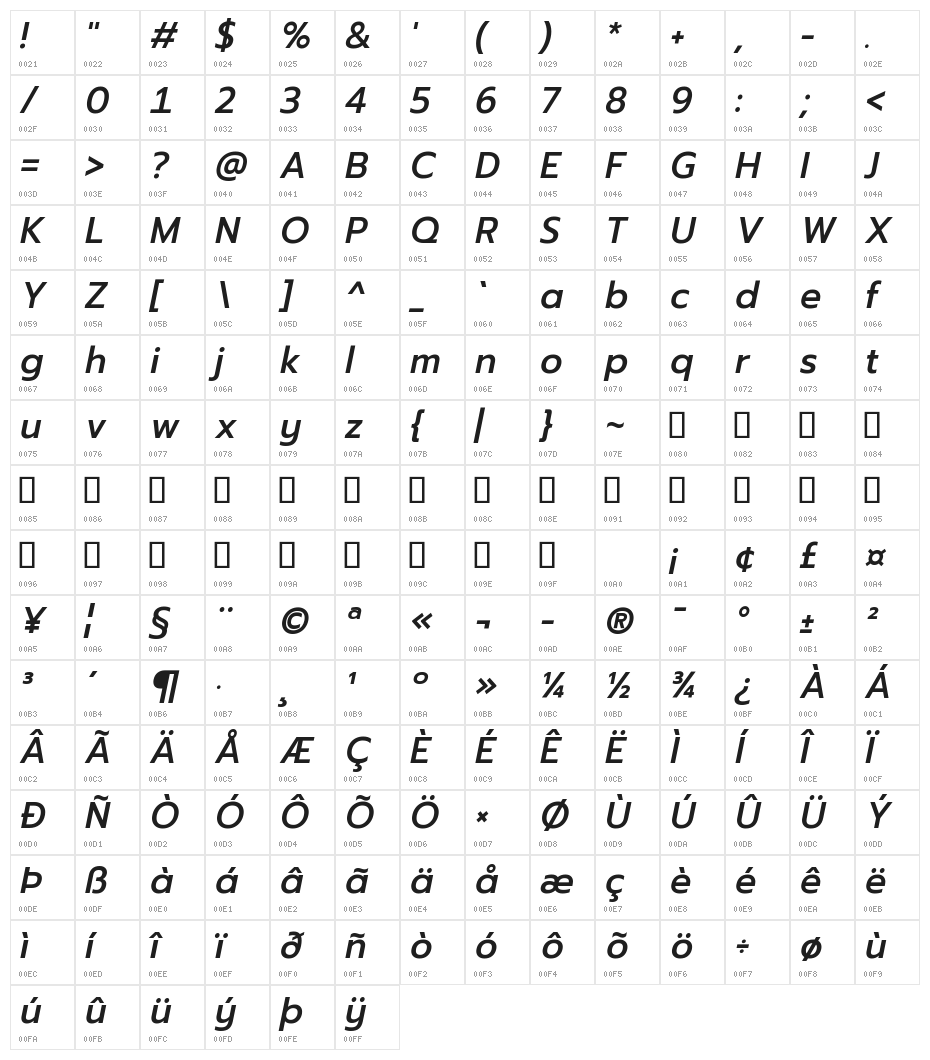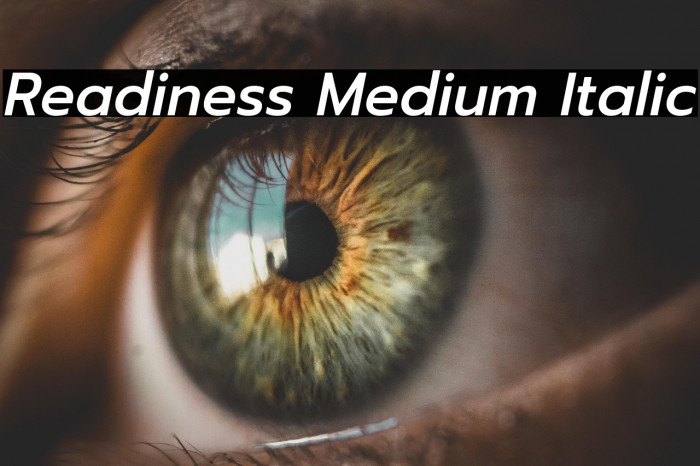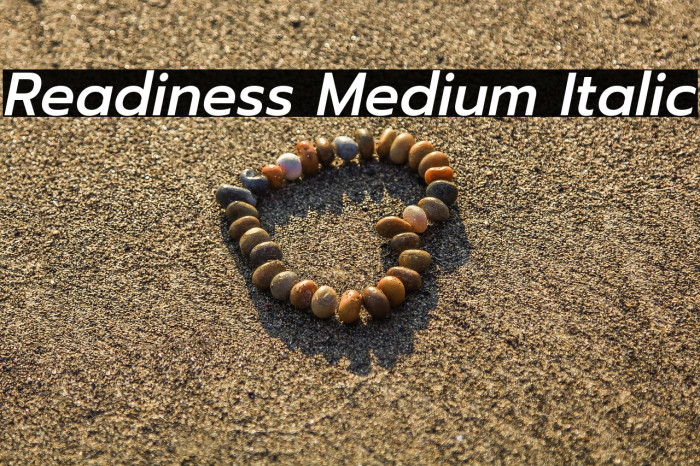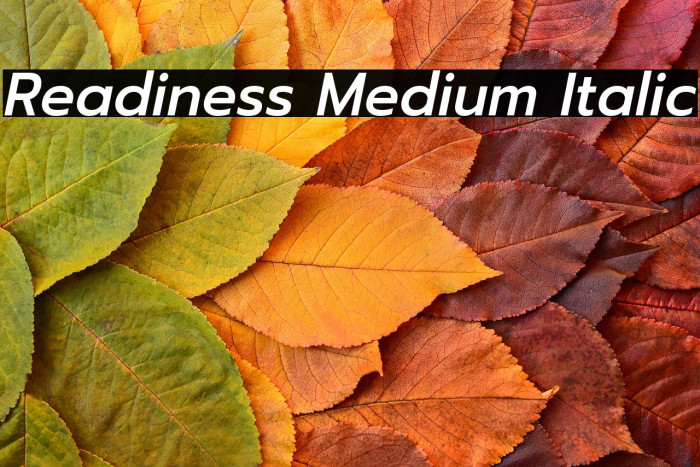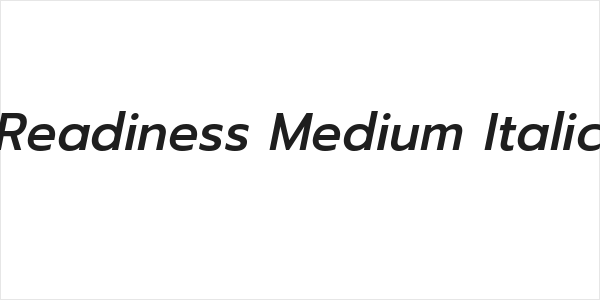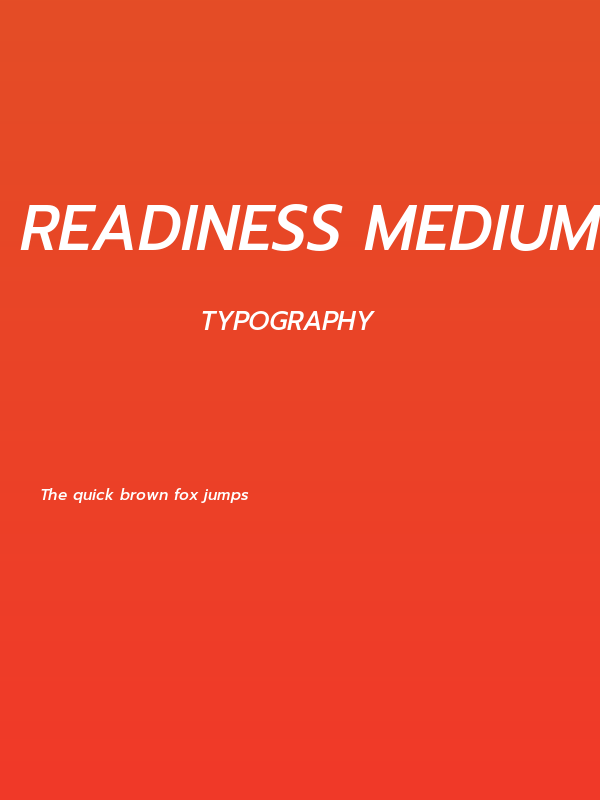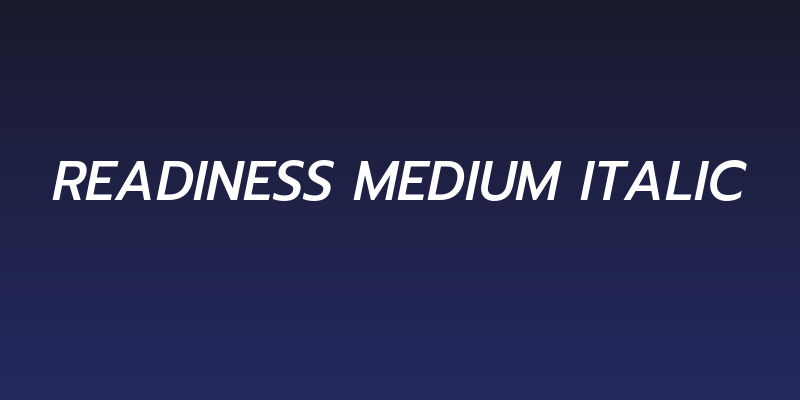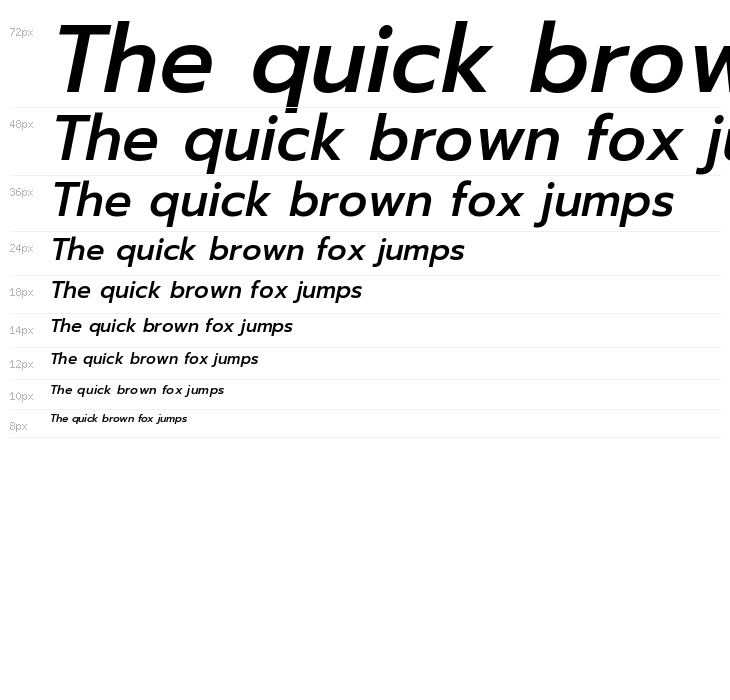
Readiness Medium Italic Font
Readiness Medium Italic Description
This font exhibits a clean and modern sans-serif style with a noticeable italic slant, giving it a dynamic and forward-moving appearance. The characters are well-proportioned with a medium weight, providing a balanced and readable text. The strokes are consistent, with a medium contrast that enhances legibility without being too bold. The overall design is sleek and contemporary, making it suitable for various applications where a modern and professional look is desired. The spacing between characters is normal, ensuring clarity and ease of reading across different sizes.